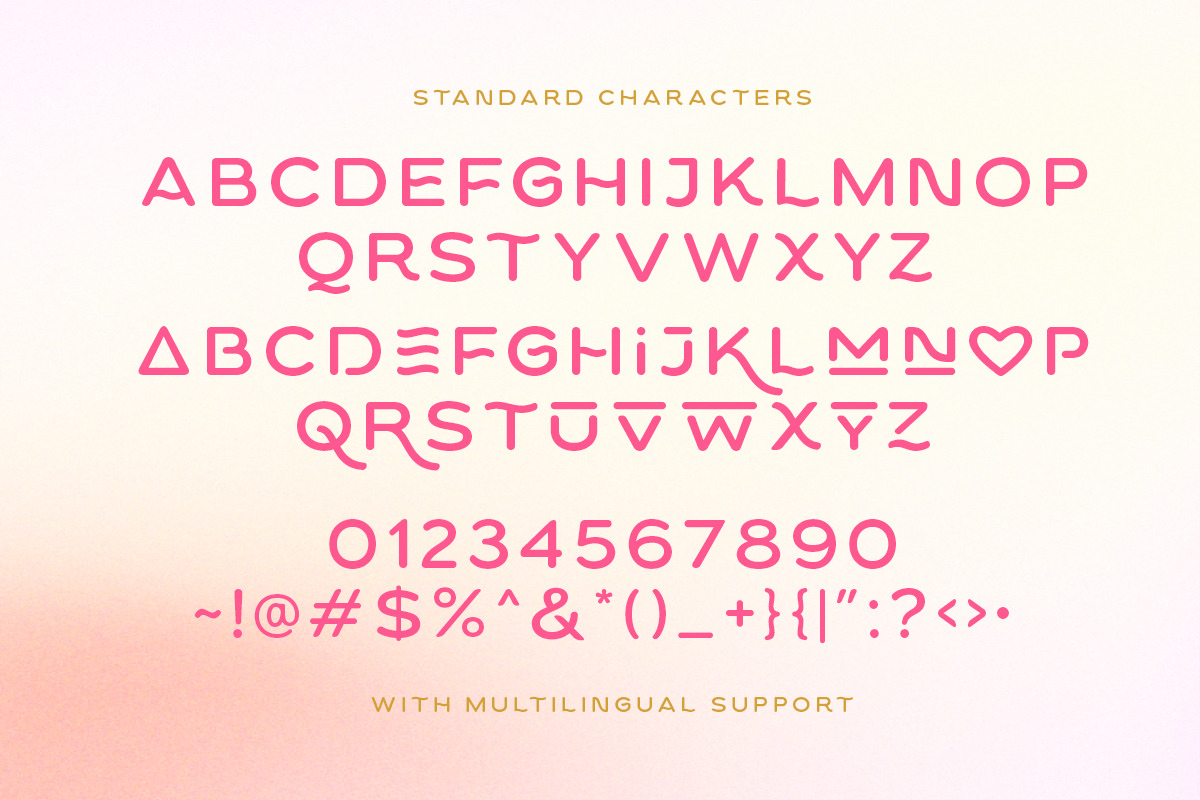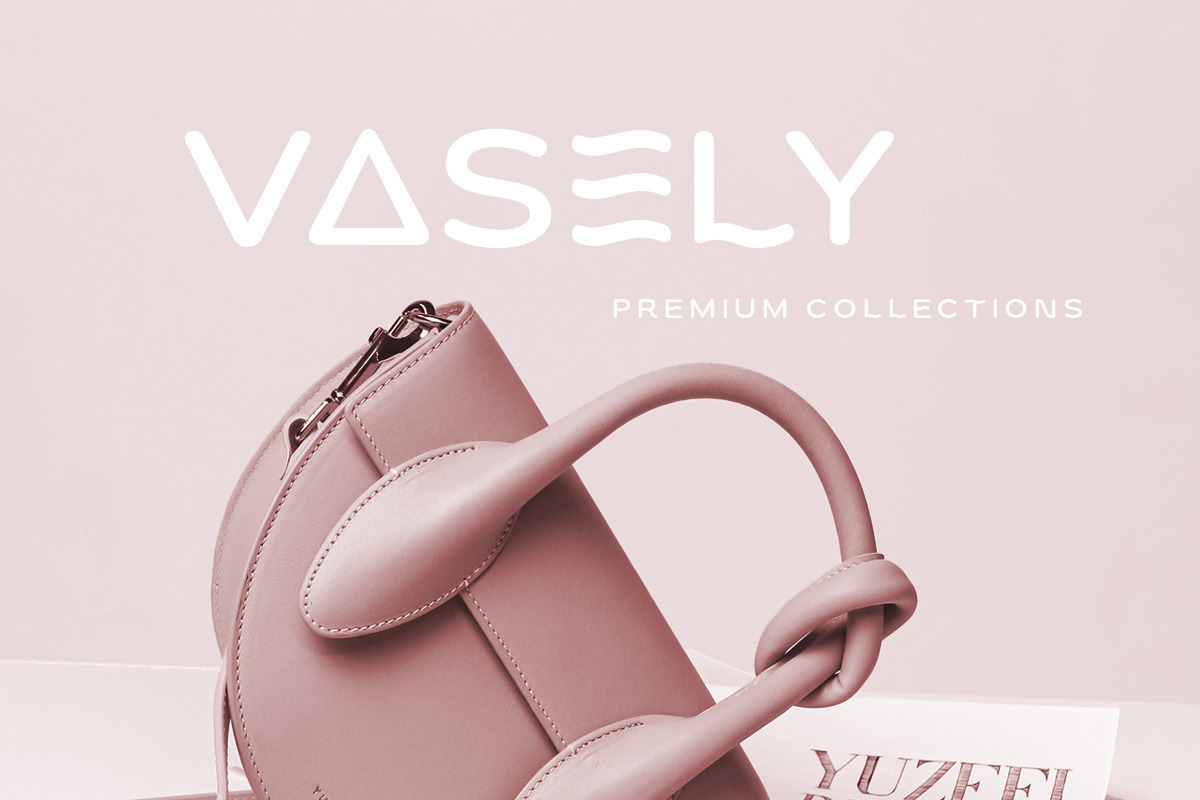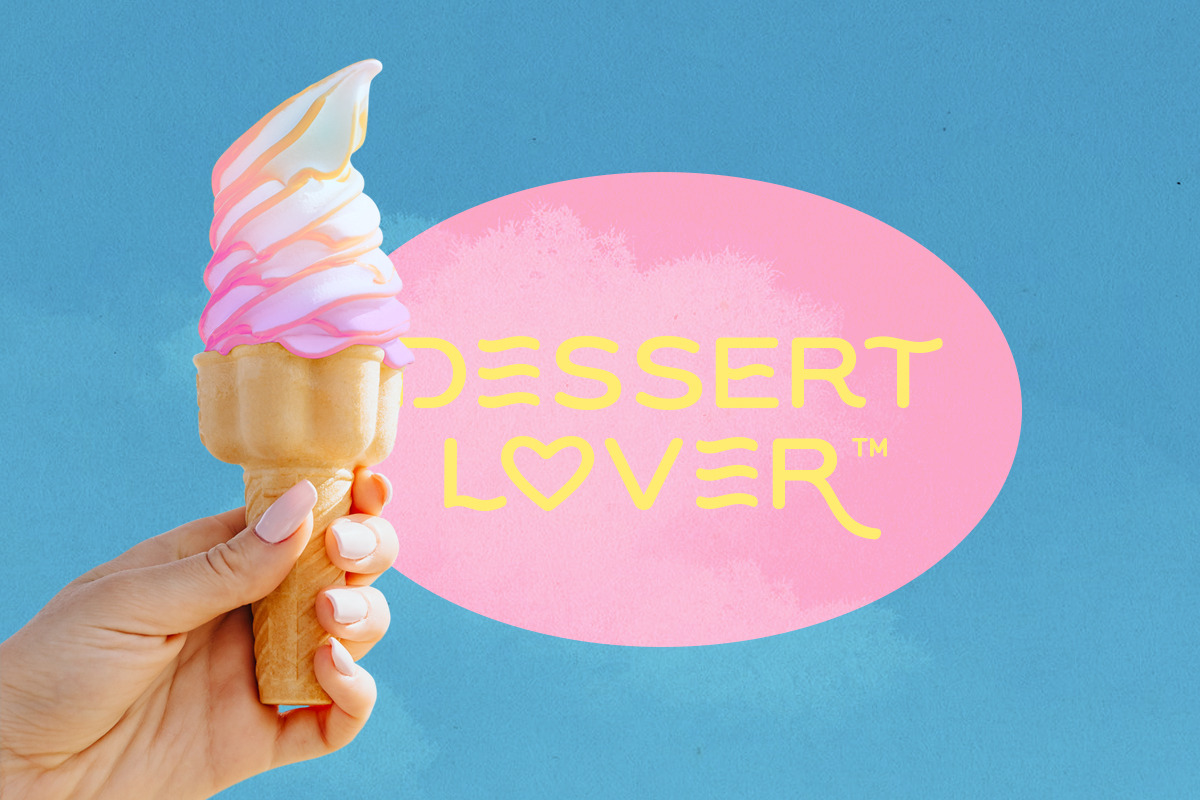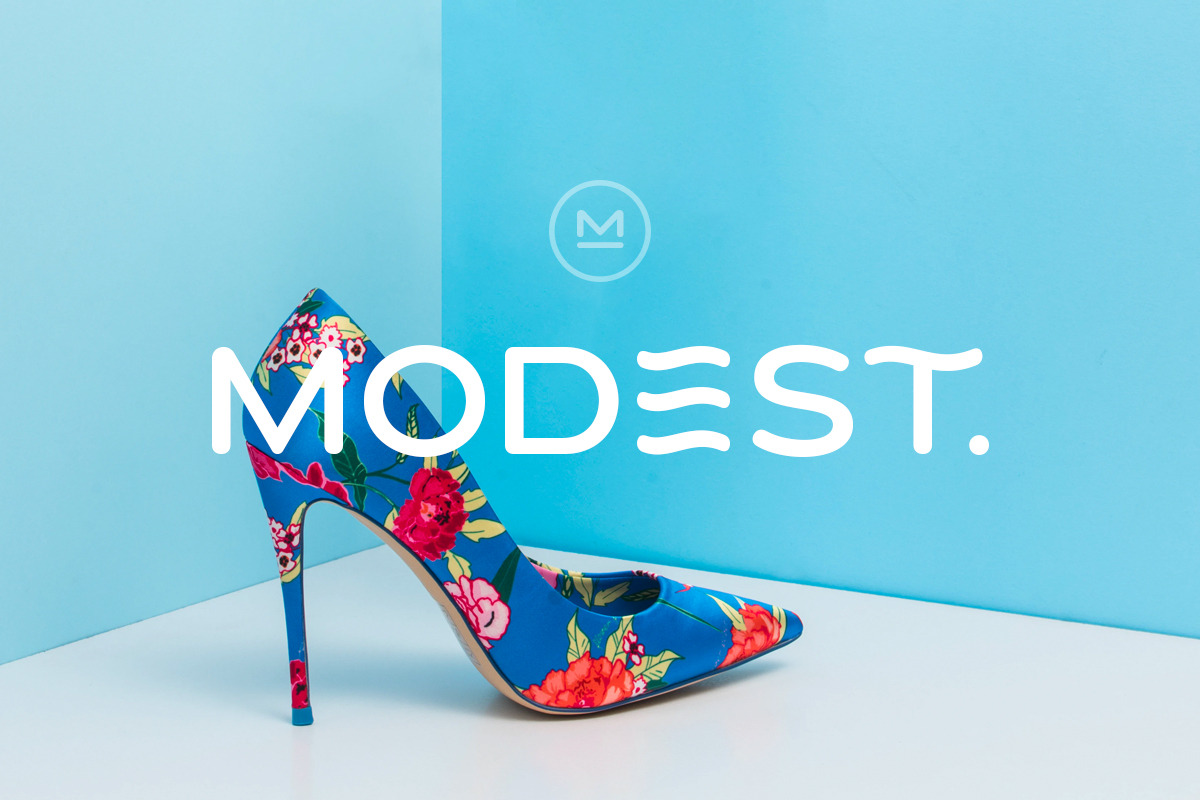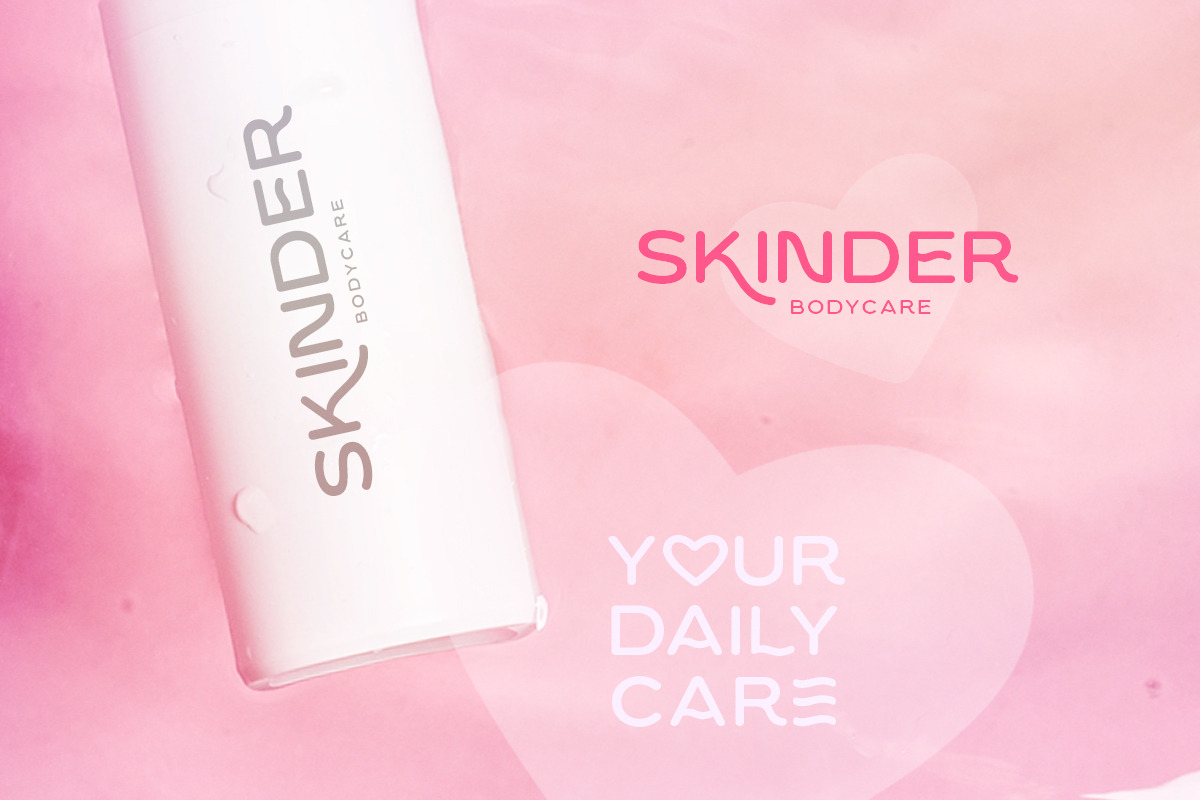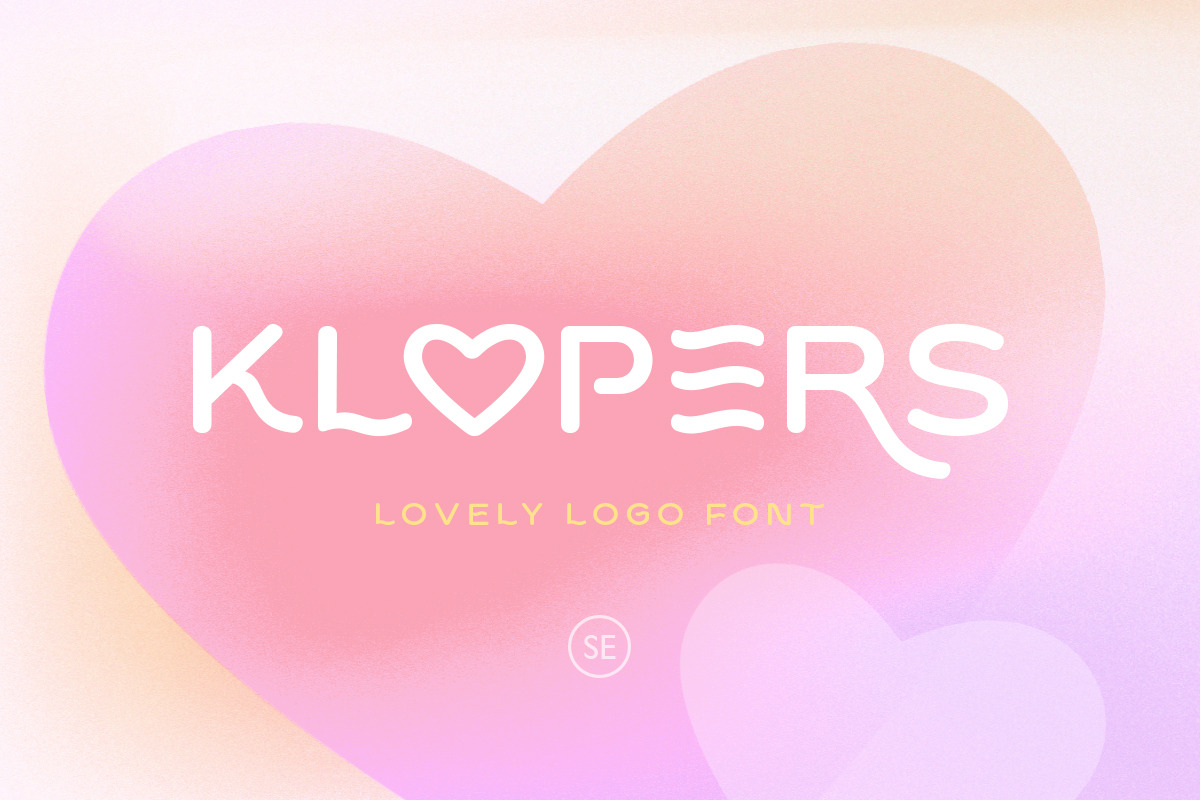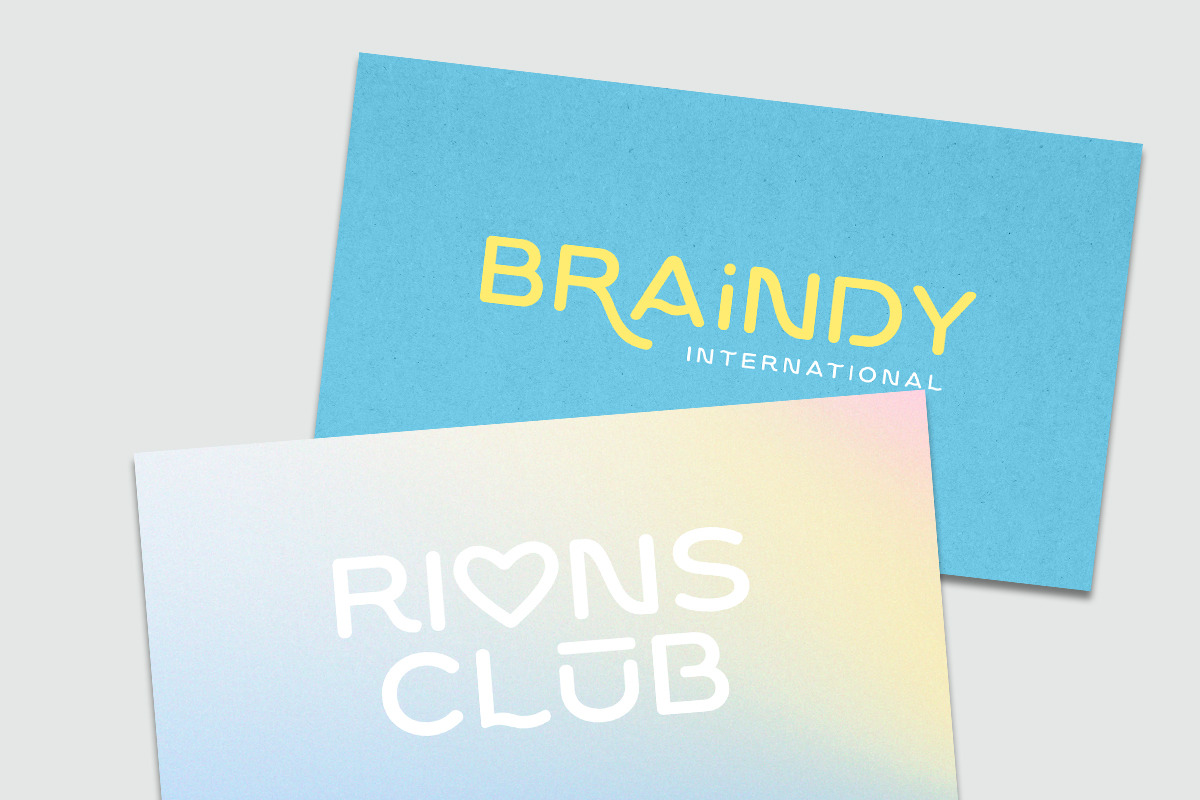
Klopers - Lovely Logo Font
Klopers is a lovely and minimalist logo font with unique shape that will make your logo and design looks more minimal yet modern. With the unique characteristic lowercase, this font can make your logo even more stunning. You can use this font for any purpose, especially to make logotype. You can mix and match the uppercase and lowercase to make your logo more advanced. Klopers also comes with love shape that replace the "o". This font also comes with number, symbol, and multilingual support!